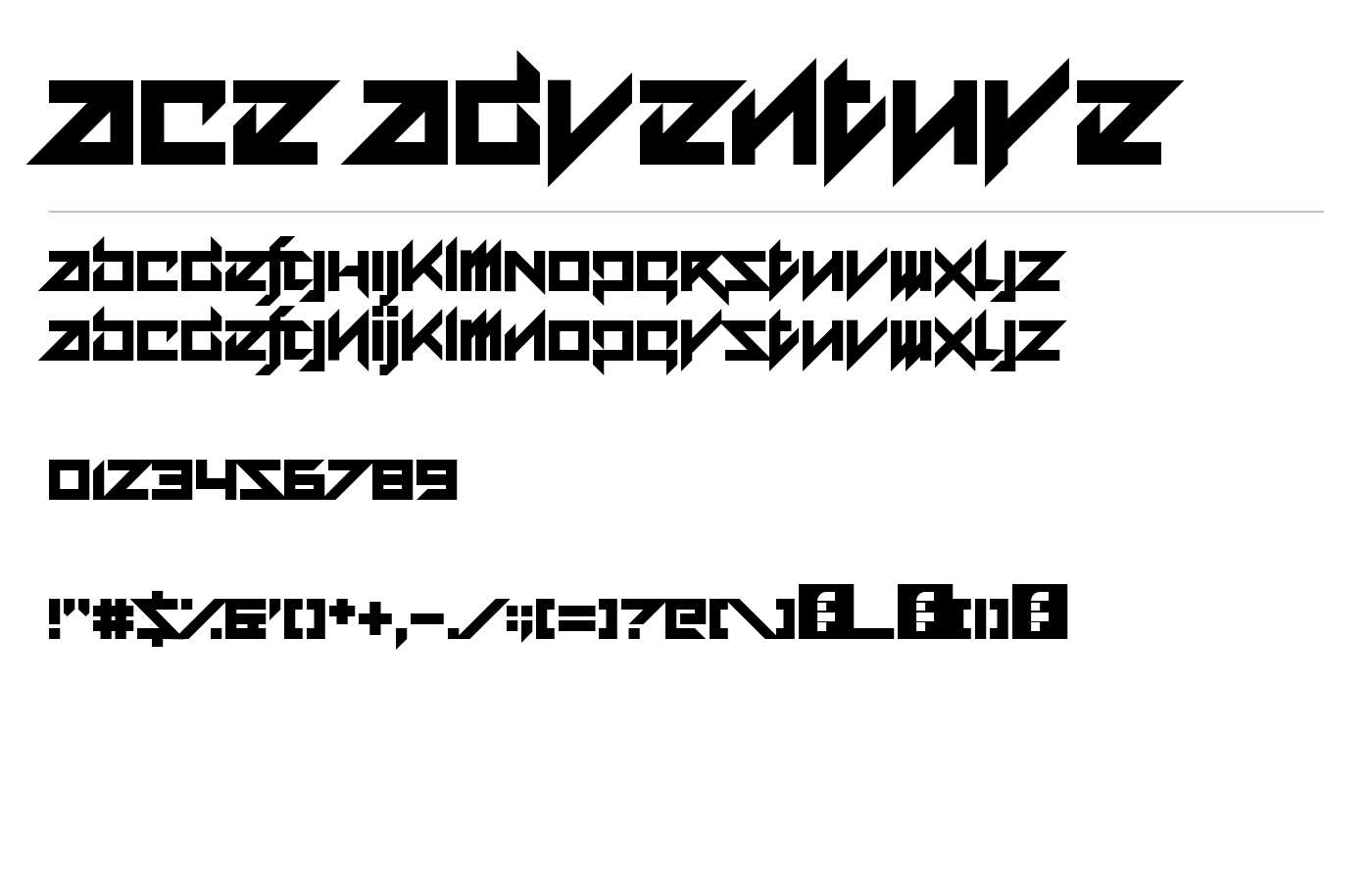
Ace Adventure is a bold, geometric sans serif font featuring sharp angles and a condensed structure that gives it a striking, dynamic look. Its heavy weight and distinctive edgy shapes create a futuristic, adventurous vibe perfect for logos, posters, or headlines where you want to grab attention and convey excitement. This font works best in creative, bold branding contexts that seek a modern and daring personality.
Ace Adventure Font
About Ace Adventure Font